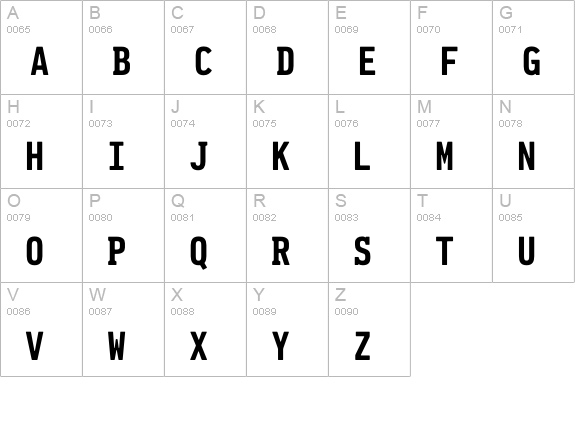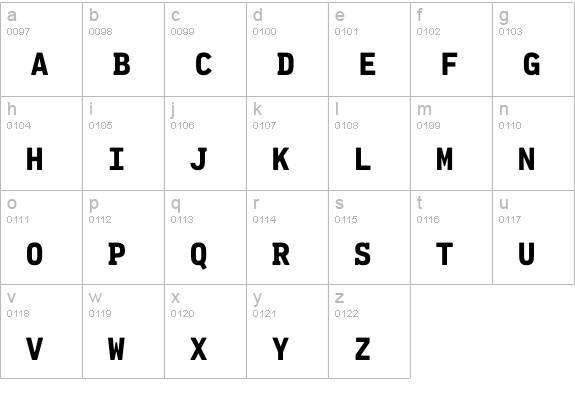
Pennsylvania Bold SC is a strong, high-contrast variant in the Pennsylvania typeface family \xE2\x80\x94 well suited to headlines, attention-grabbing titles, and strong calls-to-action.
Pennsylvania Bold SC is a timeless and striking font that exudes confidence and strength. Its bold and sturdy letterforms make a bold statement, perfect for headlines, logos, and branding materials. This font captures the essence of Pennsylvania's rich history and heritage, with its classic and traditional design. The uppercase letters are bold and impactful, while the lowercase letters add a touch of elegance and sophistication. Pennsylvania Bold SC is not only visually appealing but also highly legible, ensuring that your message is communicated effectively. Whether you are designing a poster, a website, or a brochure, this font will make your text stand out and grab attention. The best part is that Pennsylvania Bold SC is free! You can download it from FontsMarket.com, where it is readily available for anyone to use. This means you can enhance your designs without having to worry about breaking the bank. So why wait? Give your projects a touch of Pennsylvania Bold SC and make a lasting impression. Download it for free at FontsMarket.com and let your creativity soar.